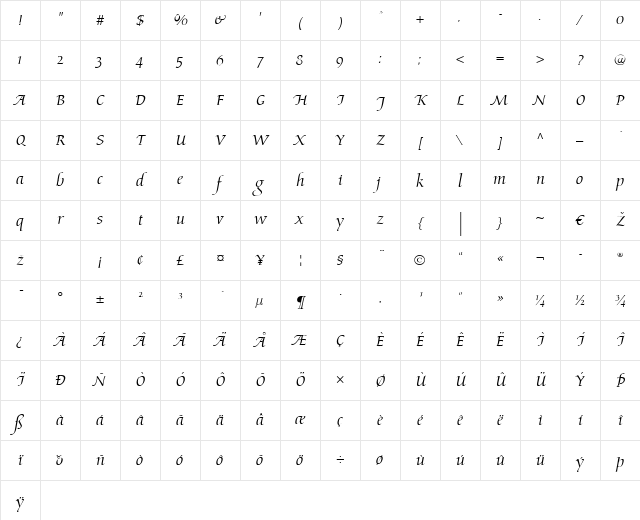
Arioso LT is a composed and adaptable typeface that performs quietly and consistently across a wide range of design contexts. Its slender proportions lend an understated elegance to any composition.